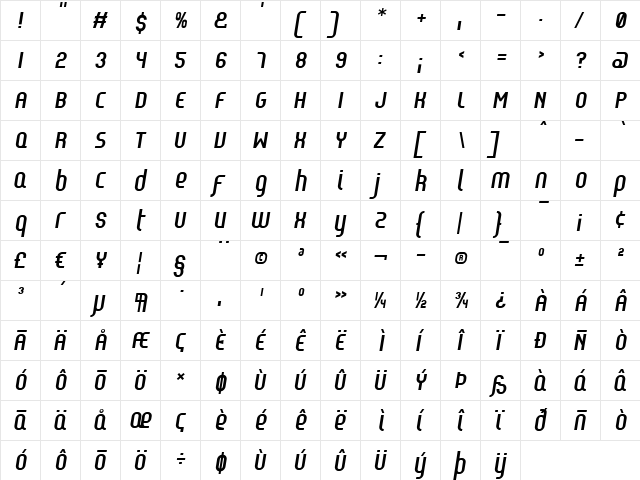
Reflex ItalicBold
| Foundry | Alejandro Paul for Typeworx |
Design Context for Reflex Typeface
Reflex offers clean, dependable letterforms without strong stylistic allegiance, making it a practical choice for designers who need flexibility. The dynamic lean of this cut emphasises speed and emphasis in any layout. Its bold stroke weight gives it real presence on the page.
Pro Tip: Use Reflex for emphasis, pull quotes, and subheadings where its slanted energy can add rhythm to the layout.